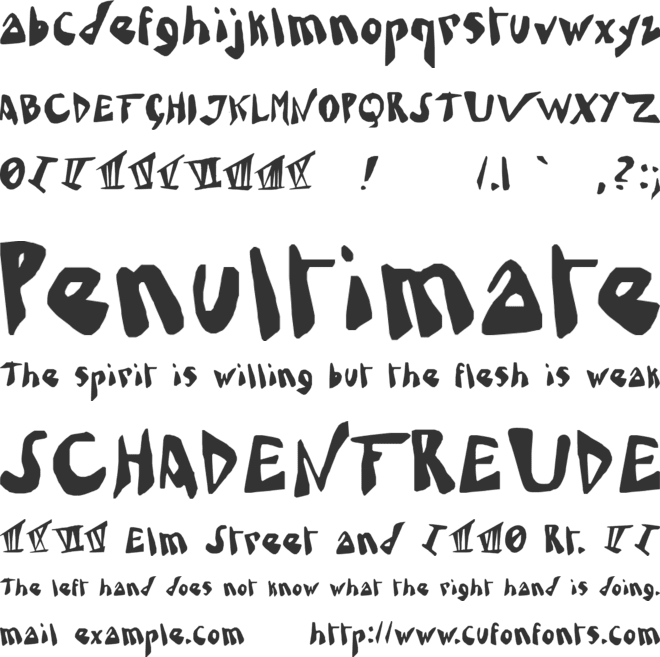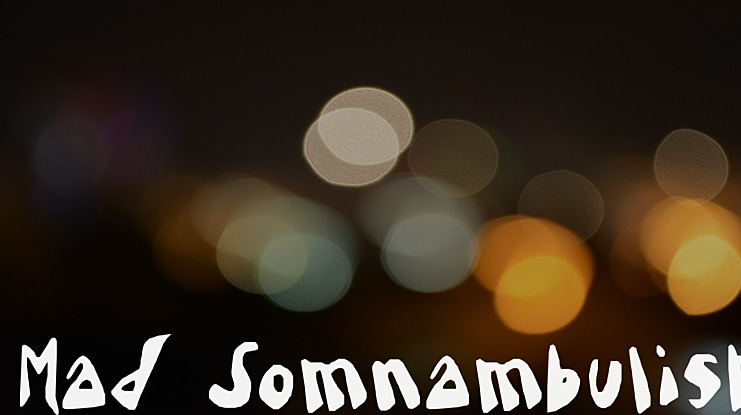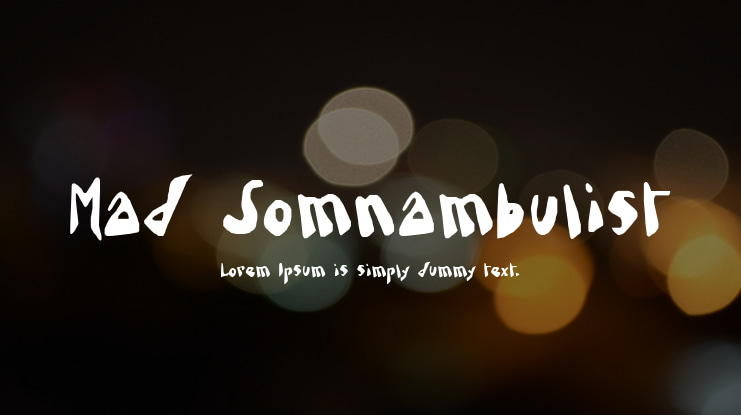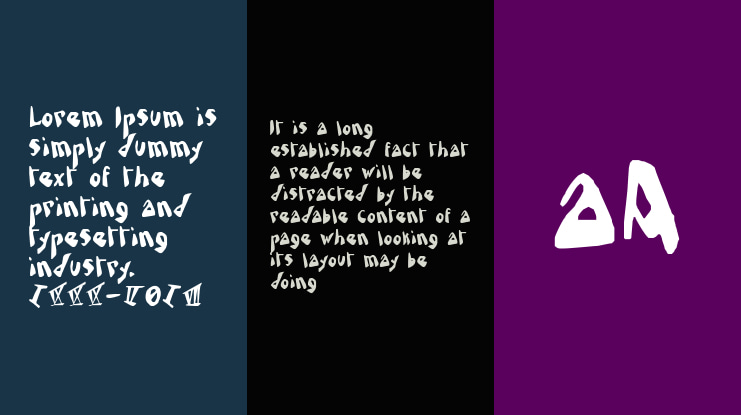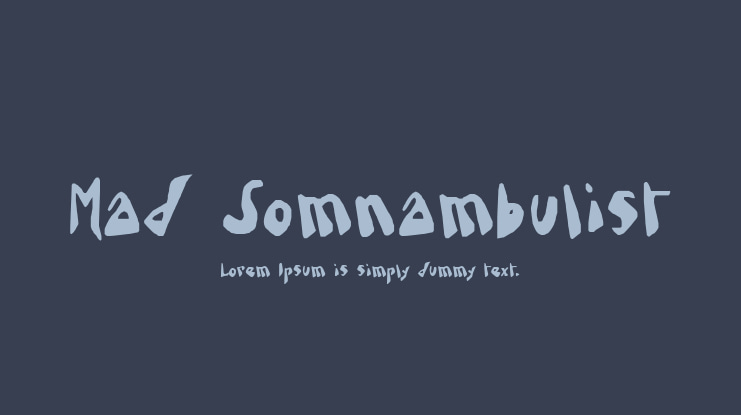
Mad Somnambulist Font
Joseph M. Pence
Mad Somnambulist is a choppy, abstract script font based on the hand-etched playbills from the stylized Expressionist silent classic, "The Cabinet of Dr. Caligari." It includes full kerning (in applications which support it), some diacritics, and Roman numeral dingbats for numbers in homage to the film's six acts.